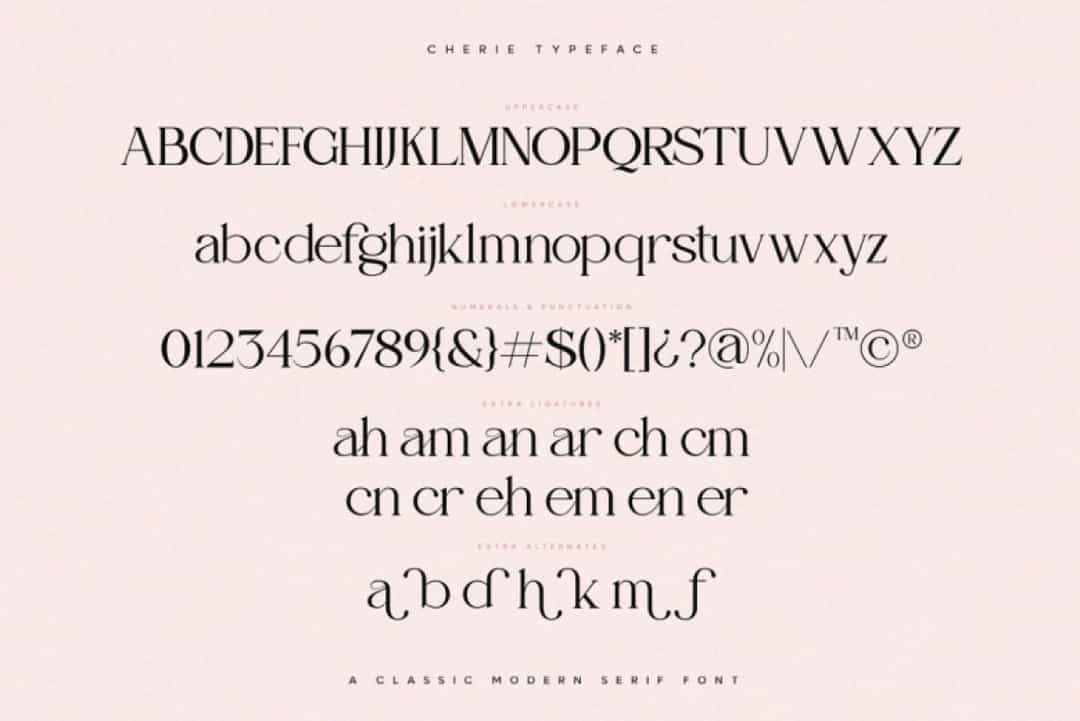
Cherie is an elegant serif typeface. This beautiful font can add a luxurious and sophisticated look to any of your designs! Add it for an eye-catching finish!